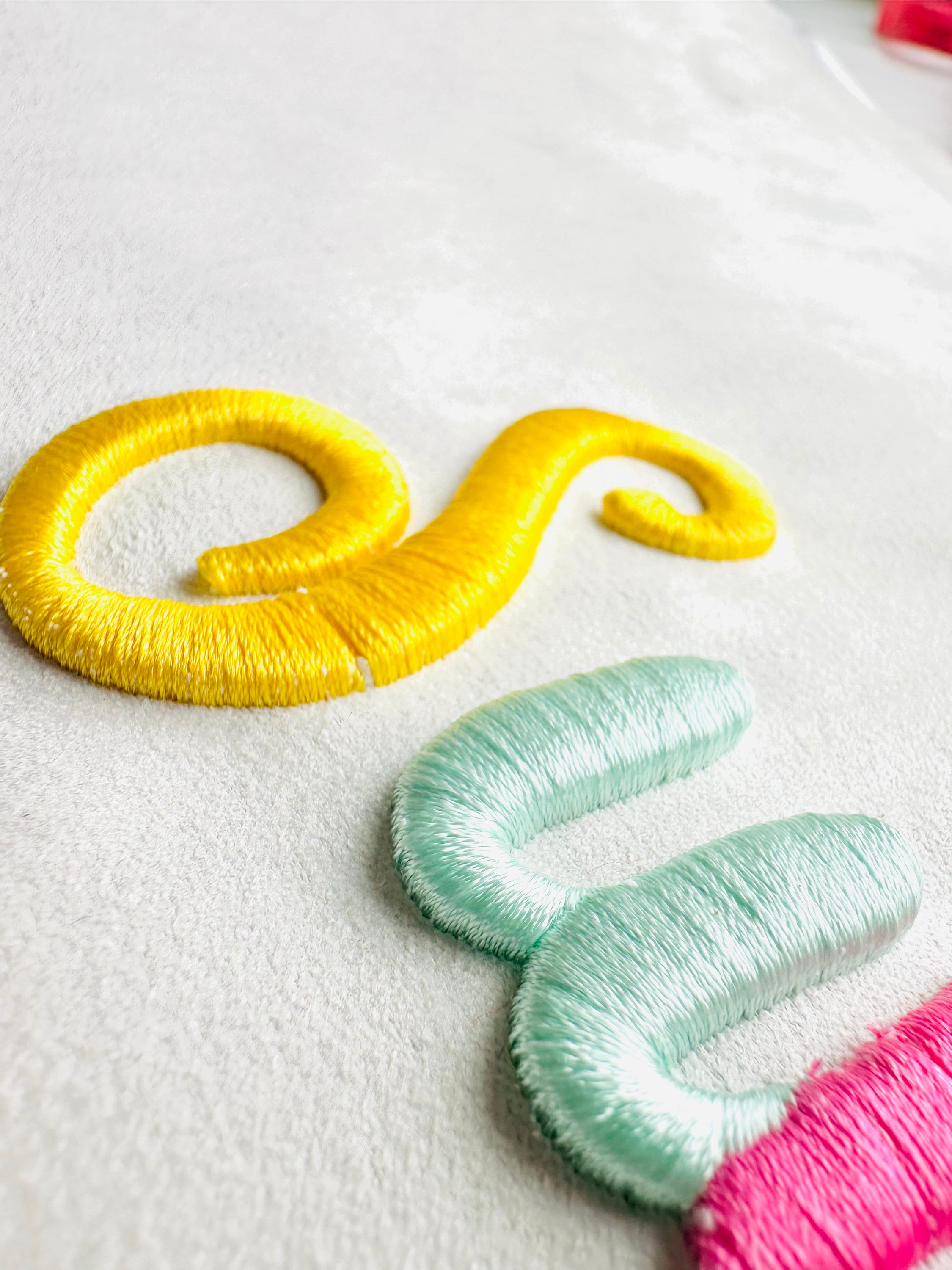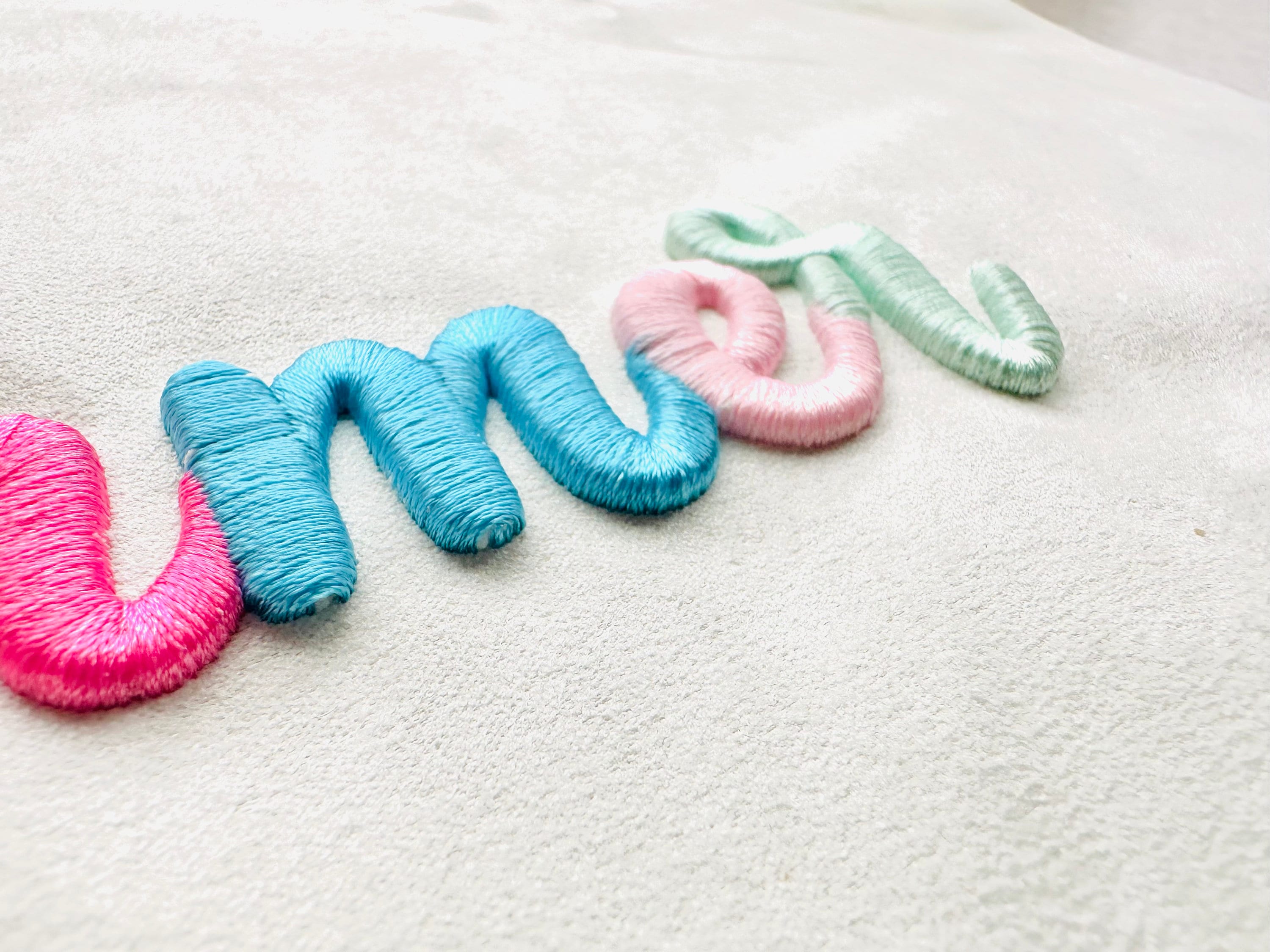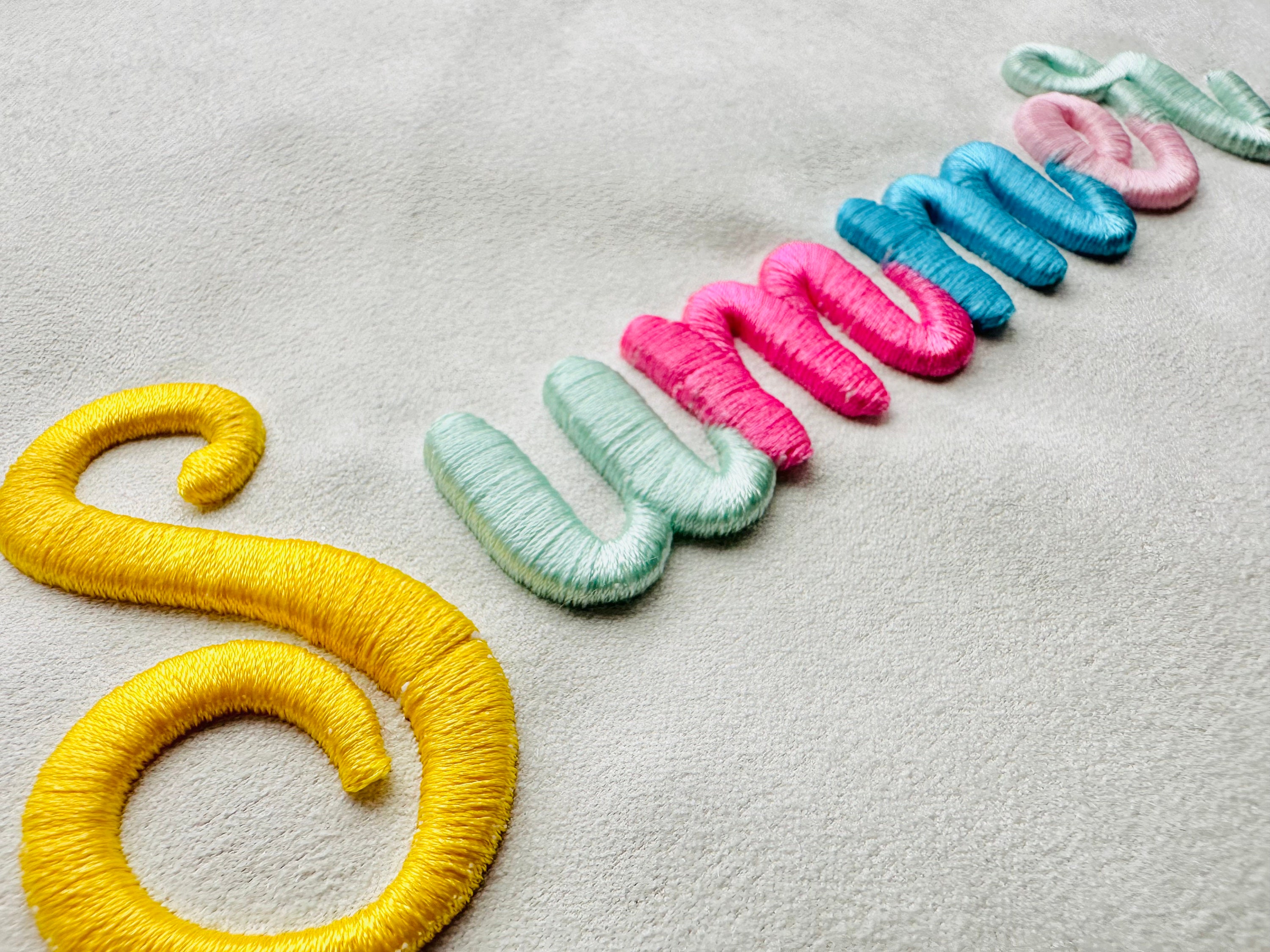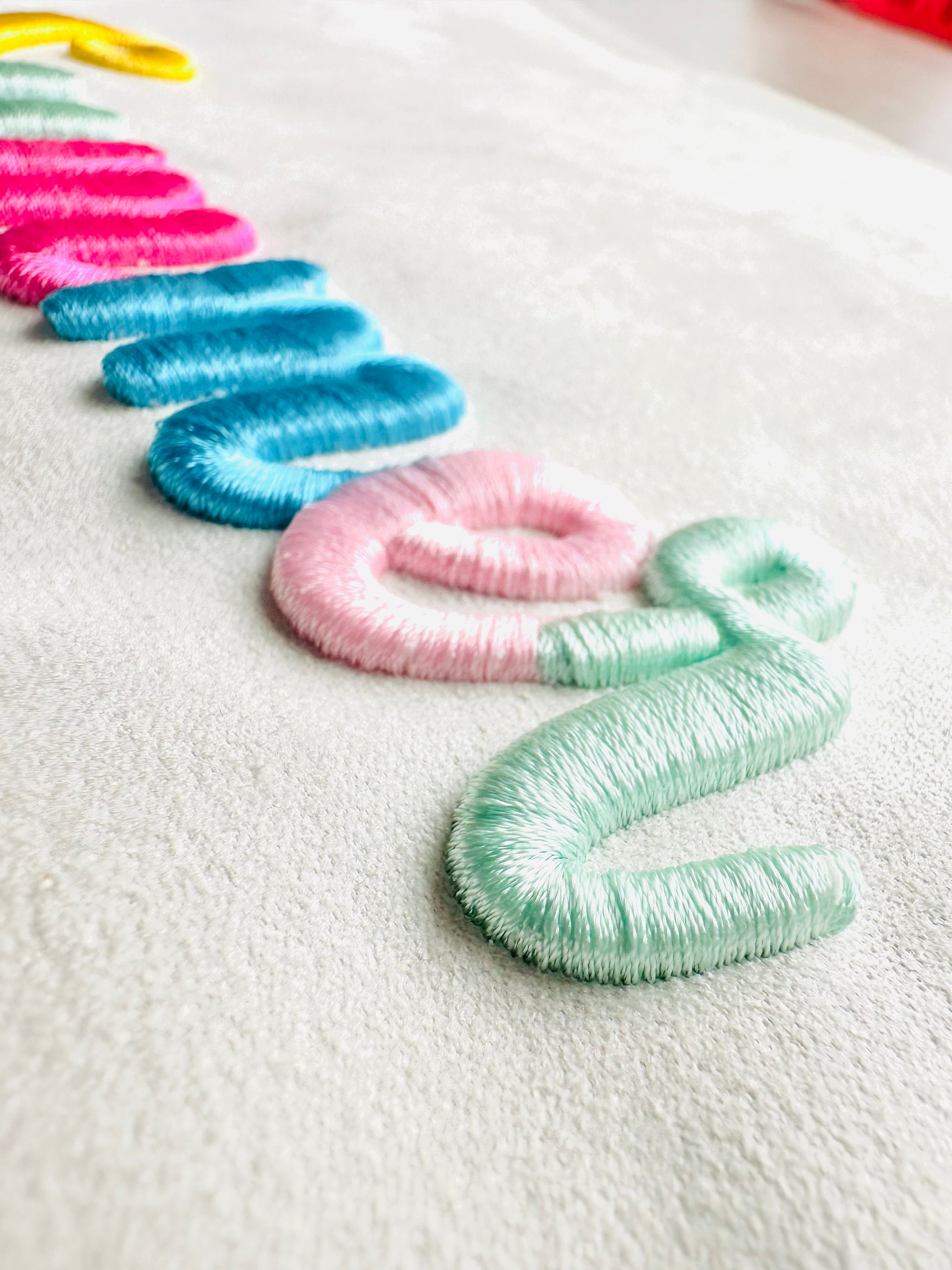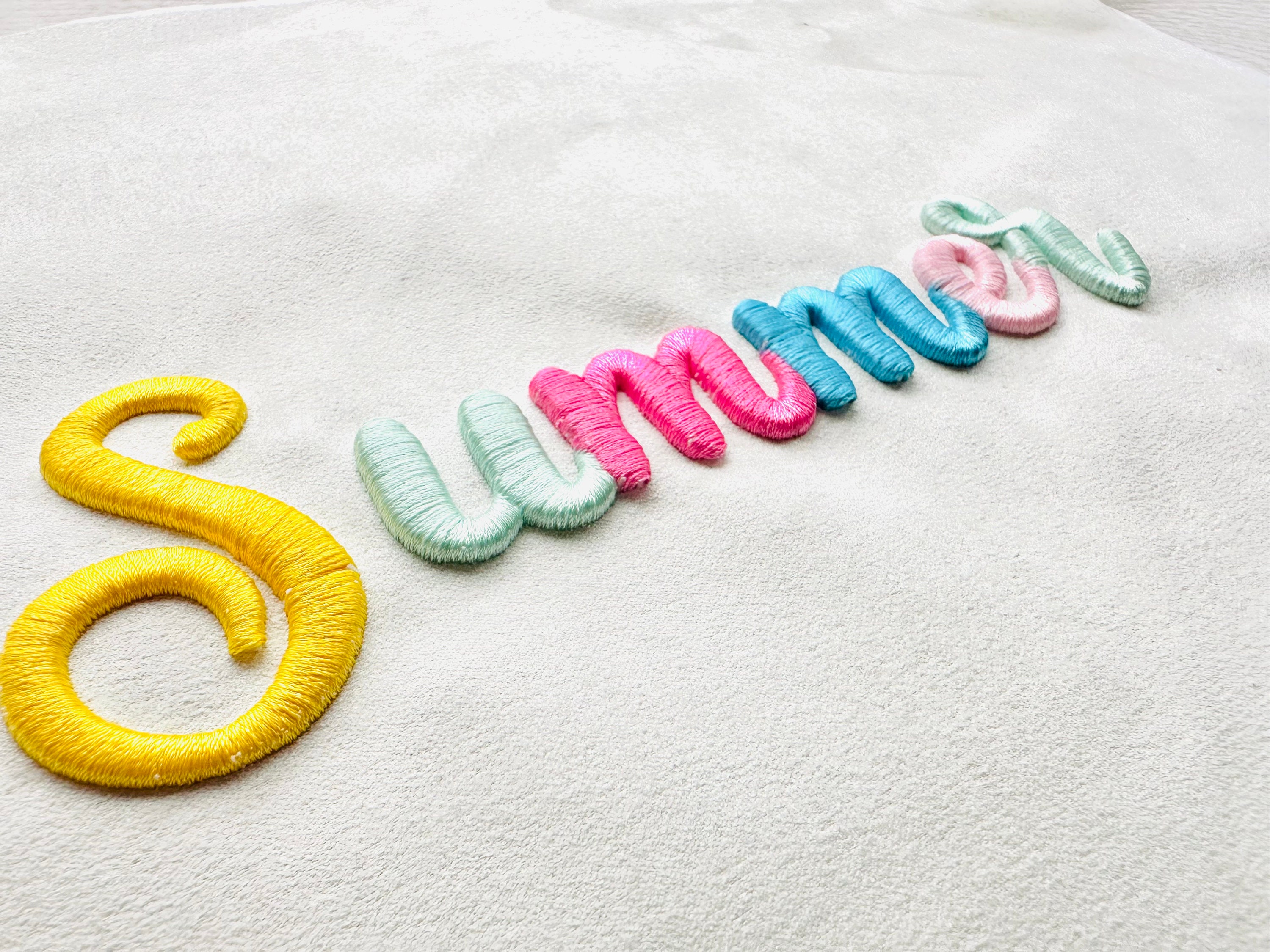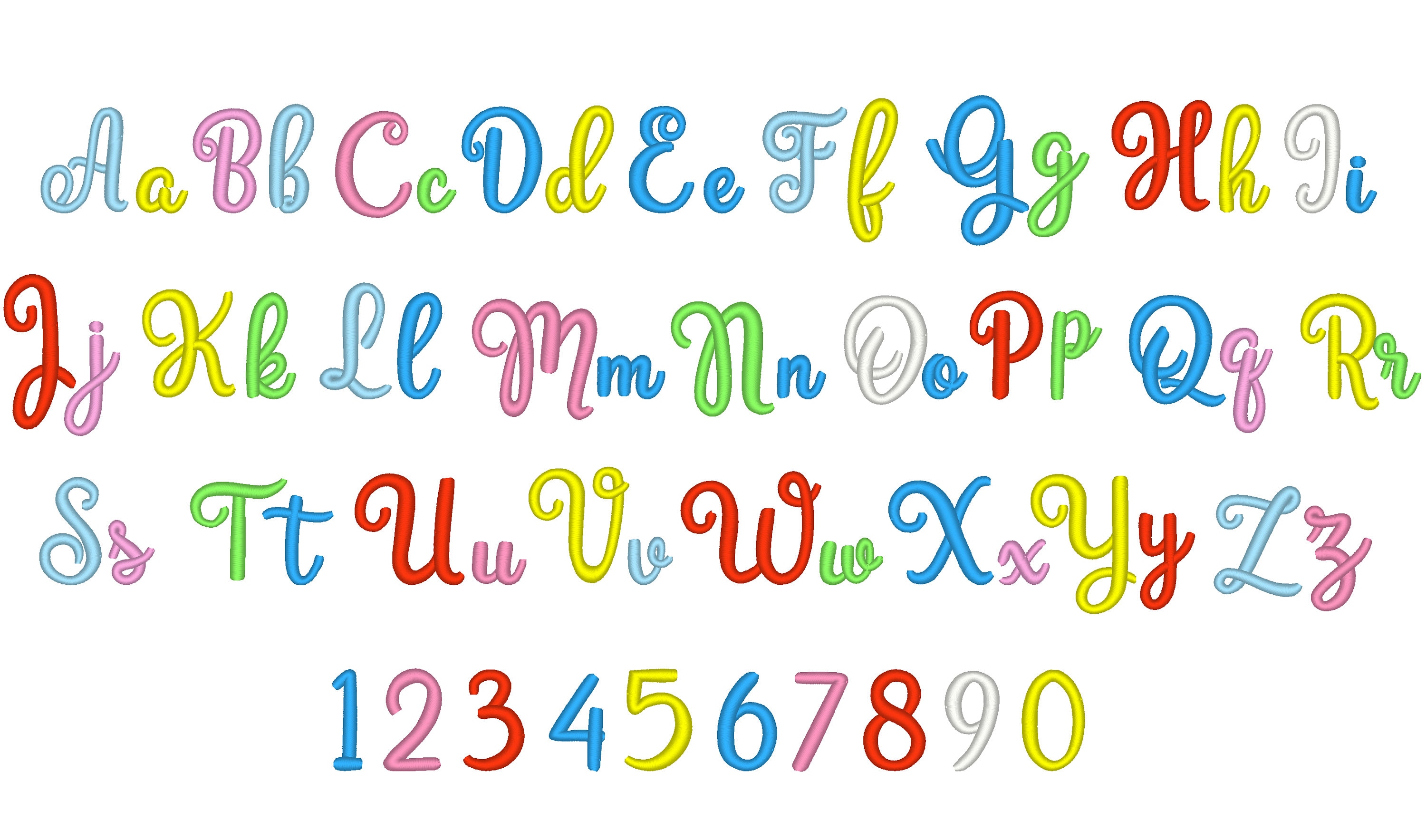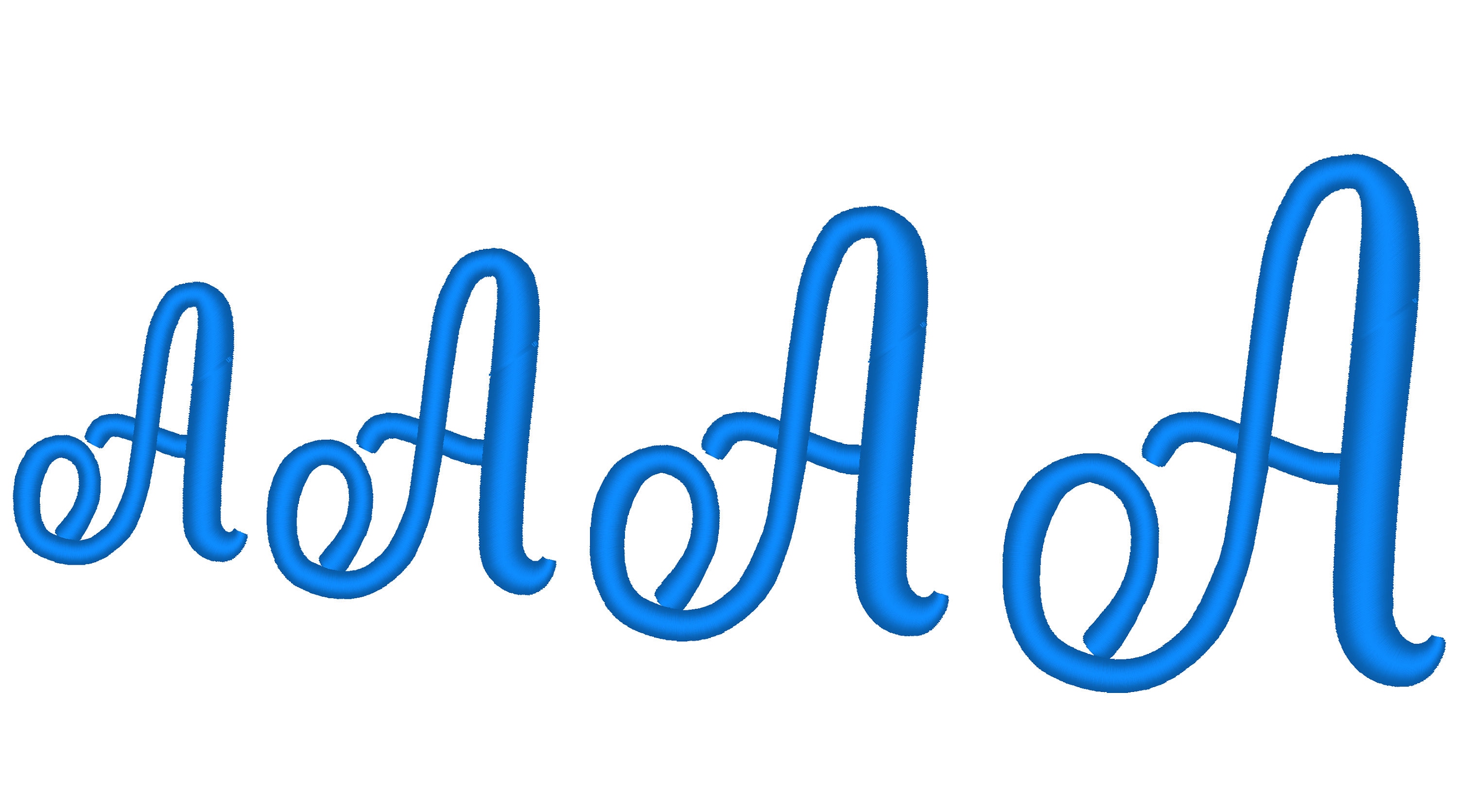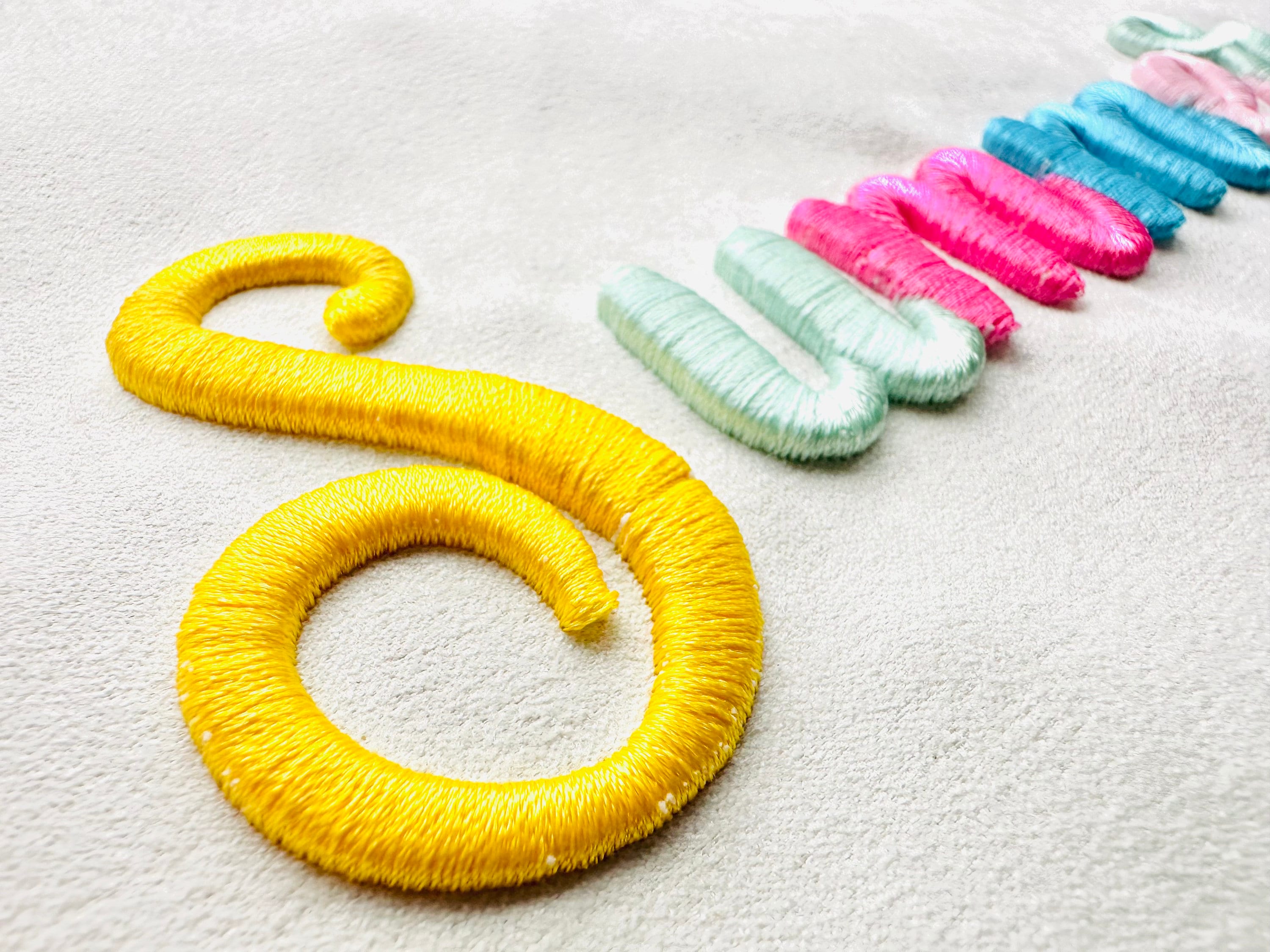
Pop Puff Embroidery font machine embroidery designs 3D raised puffy foam alphabet 1.8, 2, 2.8, 3.5 in monogram handwritten script font, BX
Whole alphabet A-Z uppercase and lowercase letters, and numbers 0-9.
For this design puffy foam is required. I'm using Gunold puffy foam thickness 3 mm.